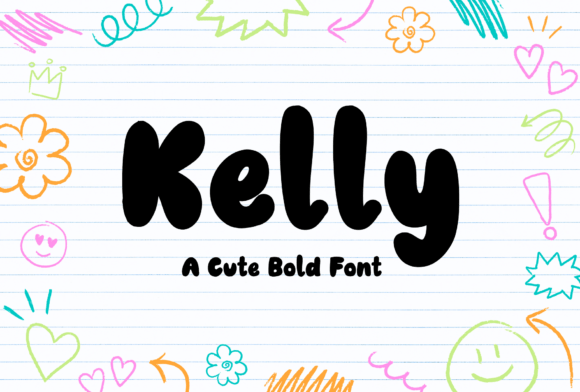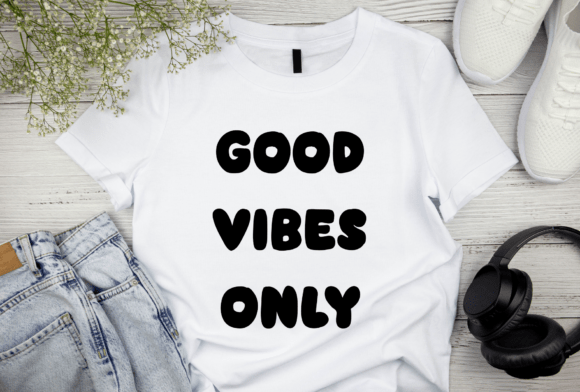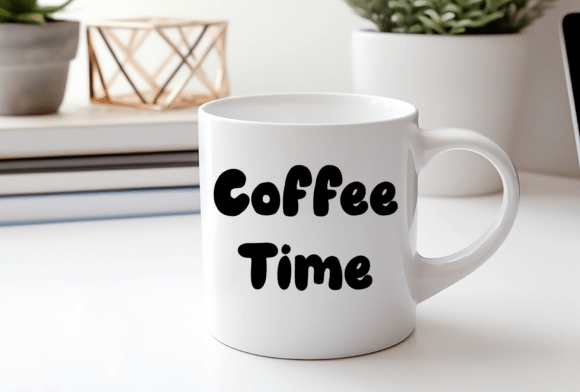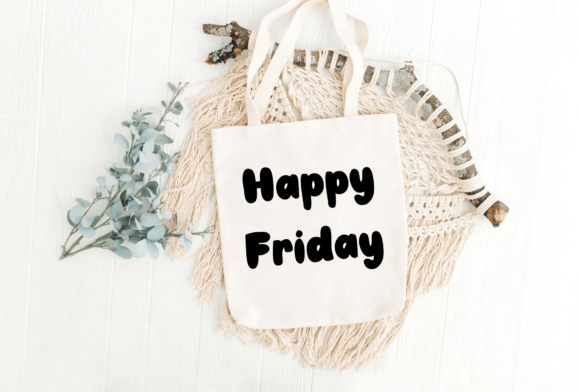
Kelly Handwritten Font
About the Kelly Handwritten Font
Let us introduce you to Kelly Handwritten Font, where timeless design meets modern craftsmanship. Introducing Kelly, a delightfully charming and irresistibly bold font that radiates playful confidence with every curve and stroke—perfect for adding a touch of personality to everything from cheerful greeting cards and whimsical branding to eye-catching posters and standout social media graphics, making your words not just seen but truly felt.
Kelly’s playful boldness makes it ideal for headlines, short text blocks, and branding elements where a friendly, approachable feel is desired. It excels in applications like logos, posters, and social media graphics, adding a touch of hand-crafted charm. However, its less-than-optimal legibility makes it unsuitable for body copy or extended text.
Consider pairing Kelly with a clean sans-serif like Open Sans for a balanced contrast, or a more geometric sans-serif such as Lato for a modern feel. For a touch of elegance, a refined serif like Garamond would create a sophisticated juxtaposition.
Kelly’s core personality is undeniably cheerful and confident, best suited to brands focused on fun, creativity, and approachable communication. Avoid using it where a serious or formal tone is required.
Kelly Handwritten Font Example